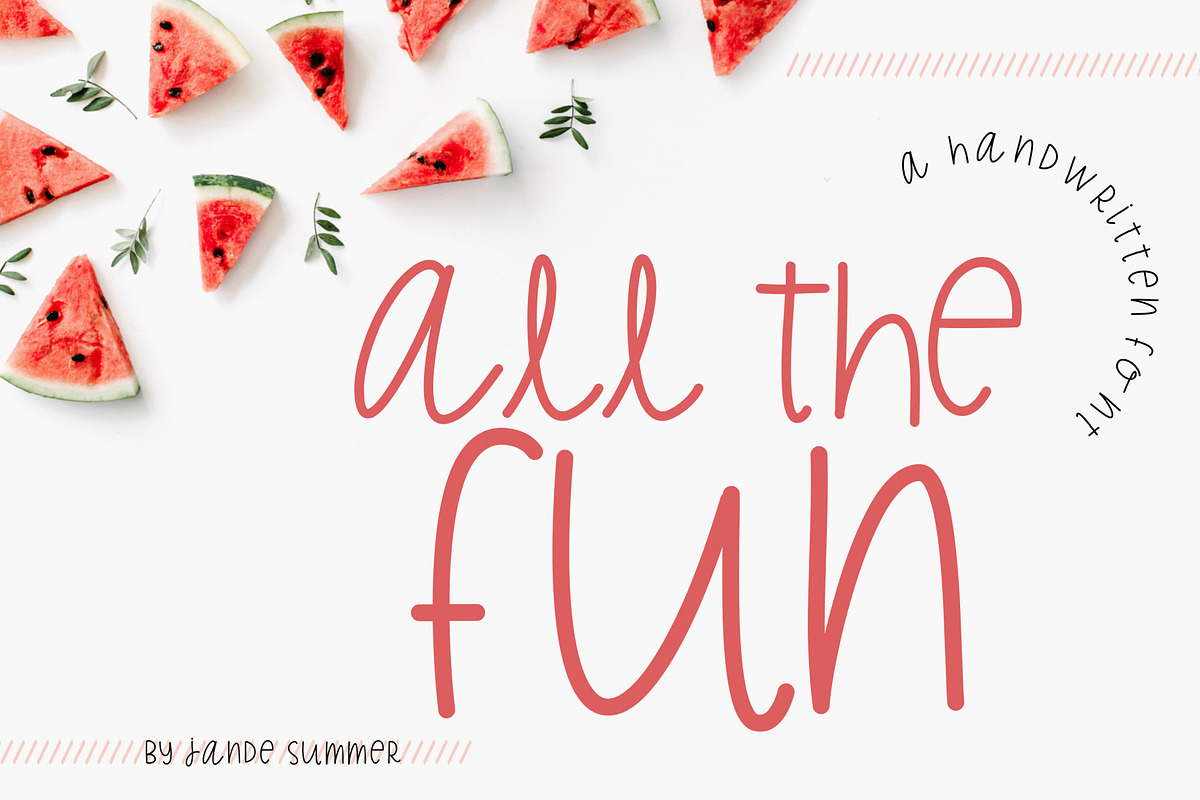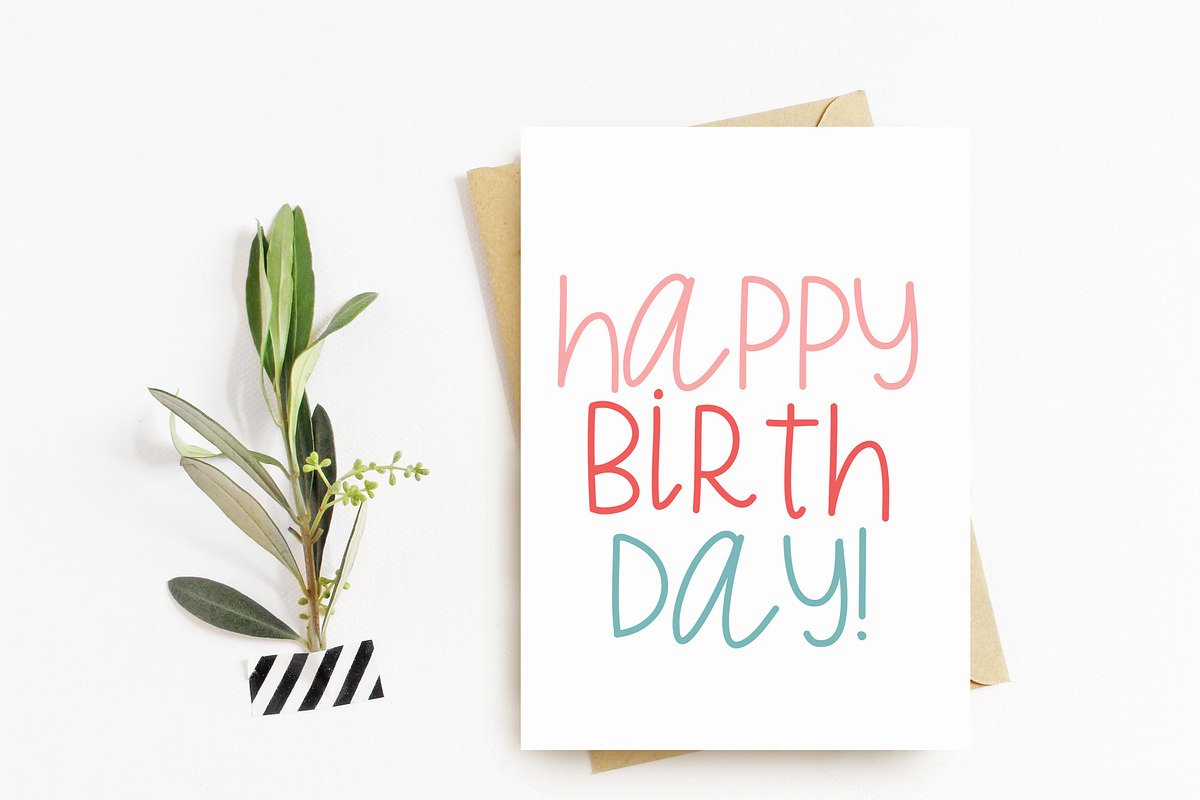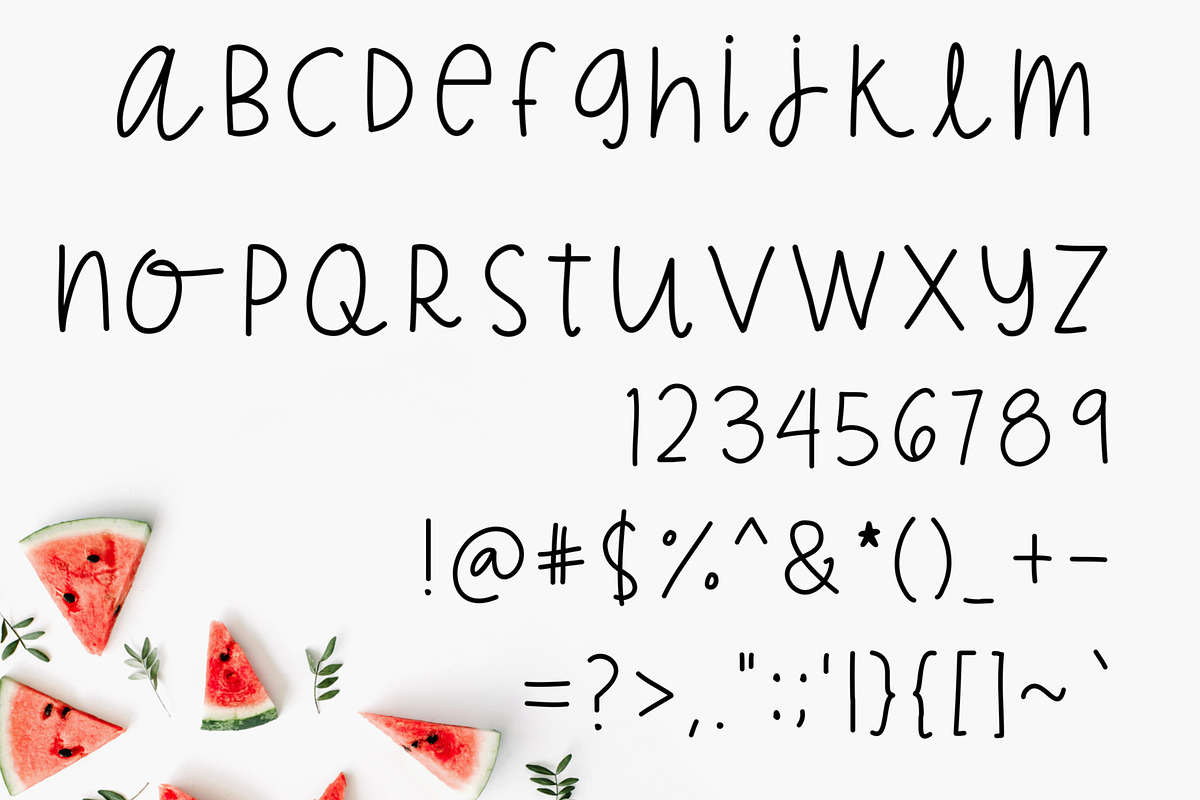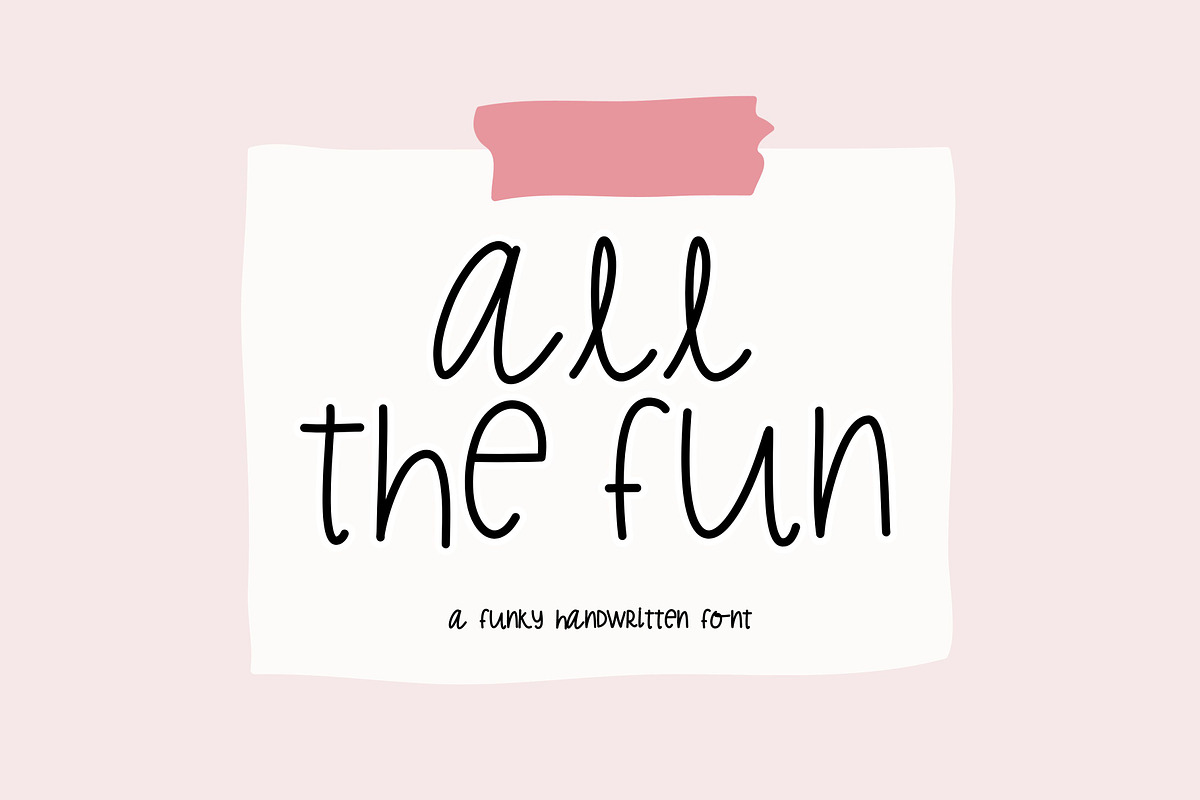
All the Fun | a Handwritten Font
Fun and quirky. If a font could be a warm summer night water fight, this would be it.
- Font Includes Full Alphabet, Numbers, Punctuation & Symbols.
All the Fun | a Handwritten Font by Jande Summer fits naturally into Branding, posters, packaging, typography.